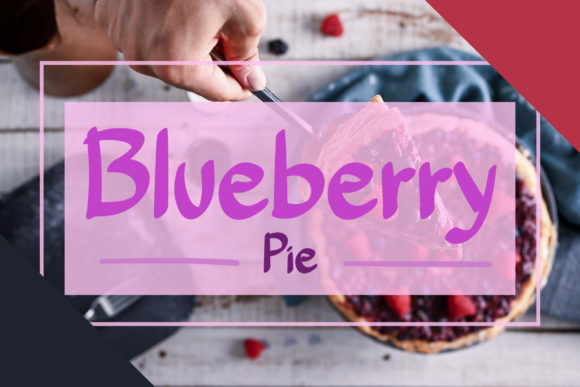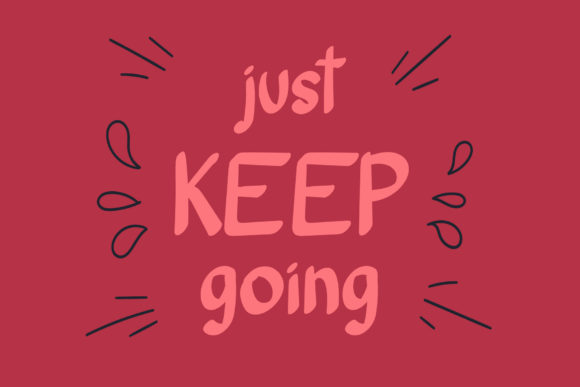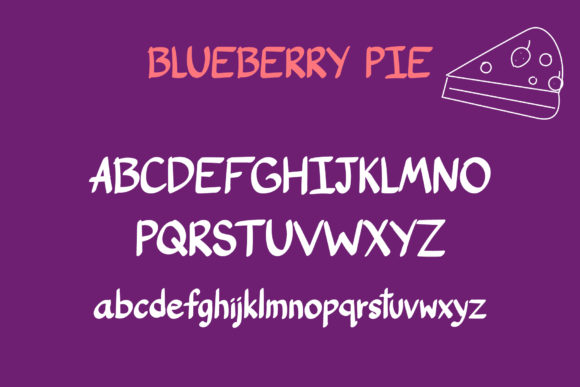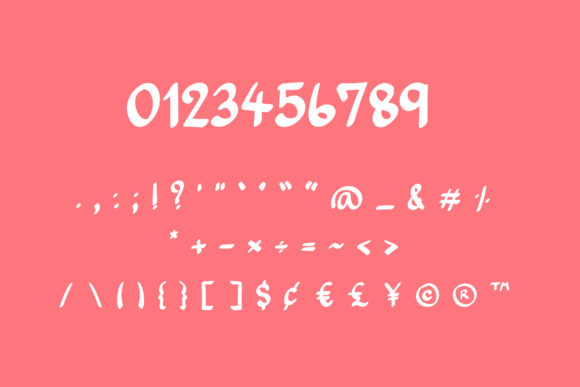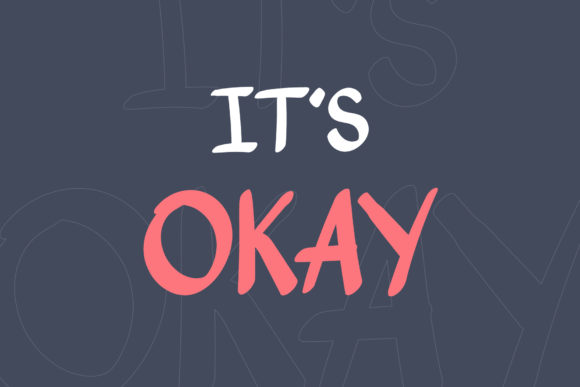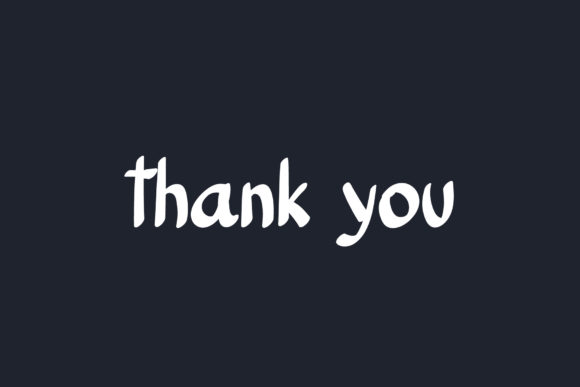
Blueberry Pie Font
About Blueberry Pie Font
Blueberry Pie is a cute and casual handwritten font with an incredibly friendly feel. Whether you’re looking for fonts for Instagram or calligraphy scripts for DIY projects, Blueberry Pie will turn any creative idea into a true piece of art!